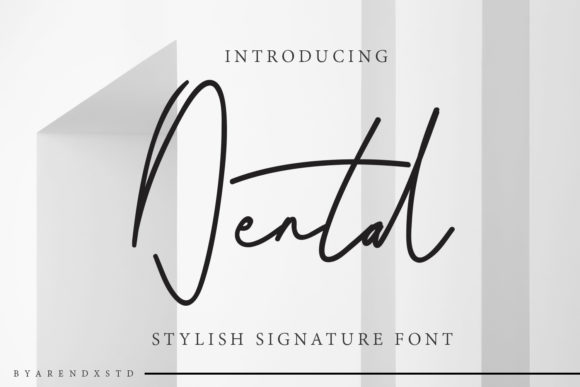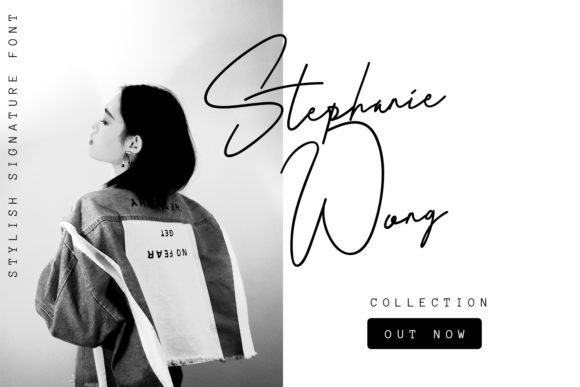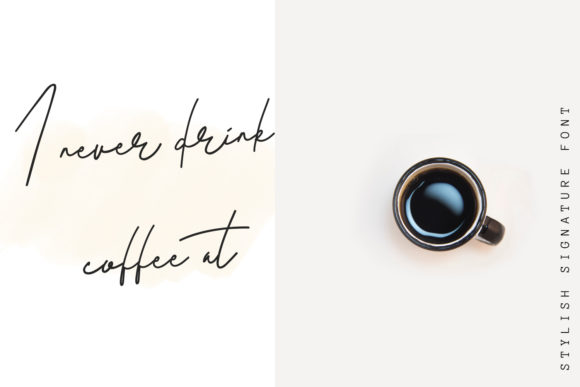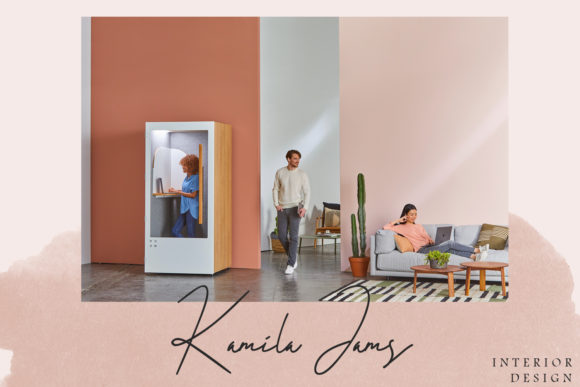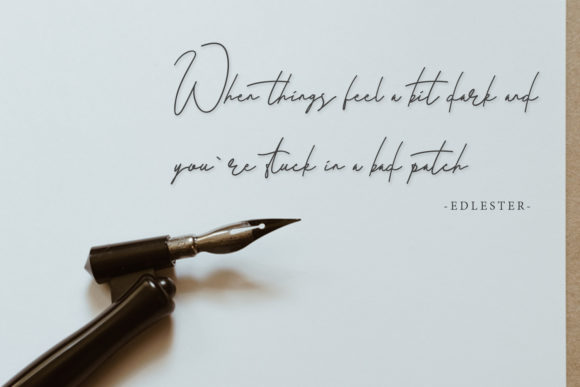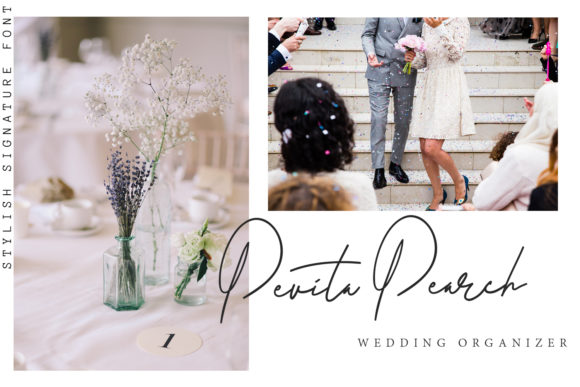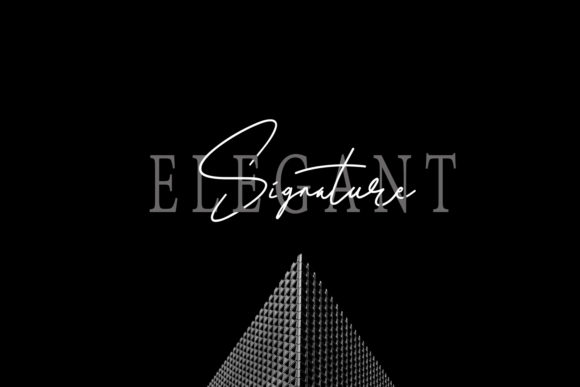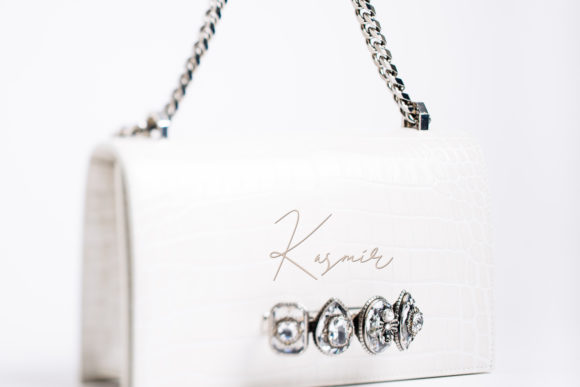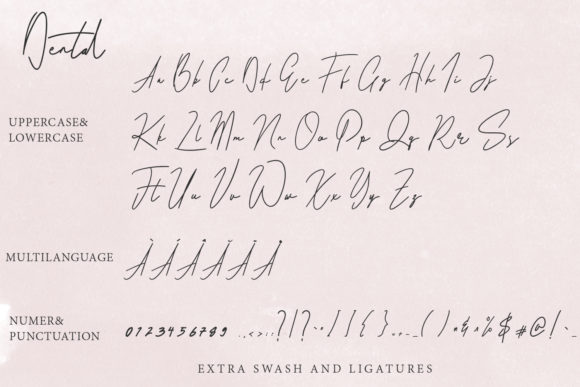
HomeScript FontsDental Font Script Fonts Dental Font FacebookXPinterestWhatsApp Dental Font Poster 2 Dental Font Poster 3 Dental Font Poster 4 Dental Font Poster 5 Dental Font Poster 6 Dental Font Poster 7 Dental Font Poster 8 Dental Font Poster 9 About Dental Font Dental is a light and charming signature font that will add a contemporary charm to any design project! DOWNLOAD ON CREATIVE FABRICAThis font is sold and delivered by Creative Fabrica. Font Canyon may earn a commission if you buy through this link. People also explored Moderns Font Housethin Font Winter Font Mailart Rubberstamp Ironside Font Velours Font Redmond Fashion Font Opendoor Font Delvon Thin Font 351 0 TagsDental Font Previous articleMoonlight Whispers FontNext articleDinattallie Font LEAVE A REPLY Cancel reply Comment: Please enter your comment! Name:* Please enter your name here Email:* You have entered an incorrect email address! Please enter your email address here Website: Save my name, email, and website in this browser for the next time I comment. Personal Use Free Little Pigeon Personal Use Free Read more about this font Party Pooper Personal Use Free Read more about this font Child Writing Free Personal Use Free Read more about this font Aelten Personal Use Free Read more about this font BLOG The 10 Best Handwriting Fonts to Add Personality to Your Designs 10 of the Best Handwriting Fonts for Adding Personality to Your Designs There will undoubtedly be no other better choice than handwriting fonts to give... Free Fonts Risk: Why Free Fonts Can Be Dangerous for Designers 5 Fonts That Will Dominate Design Trends in 2026 Best Fonts for T-Shirt Design – Top 2025 Picks